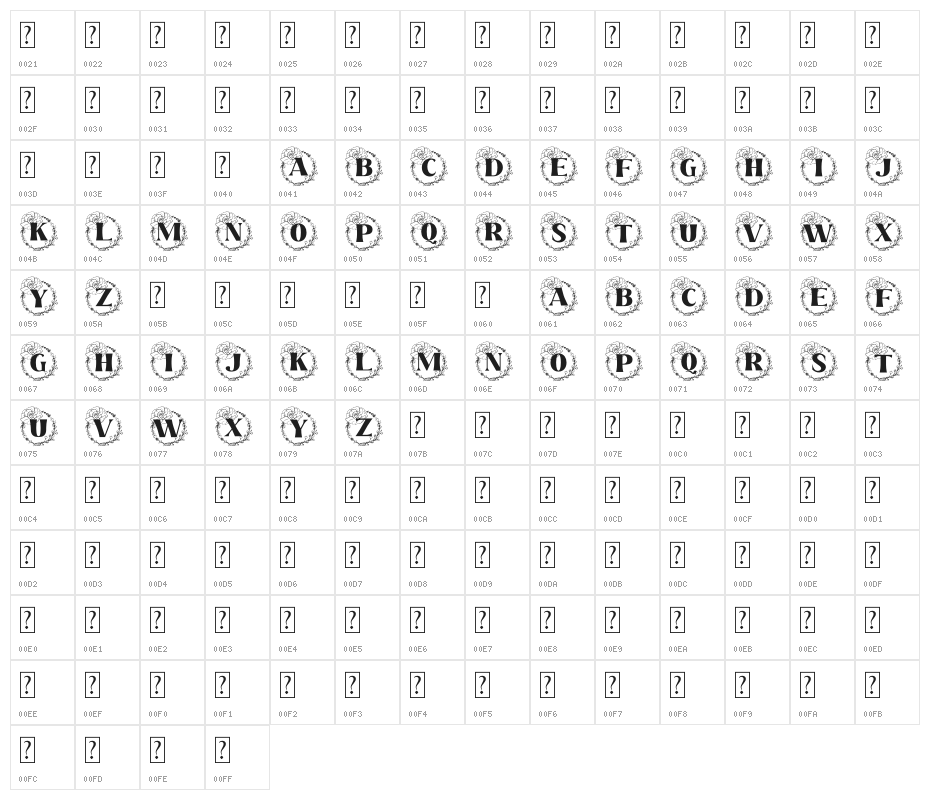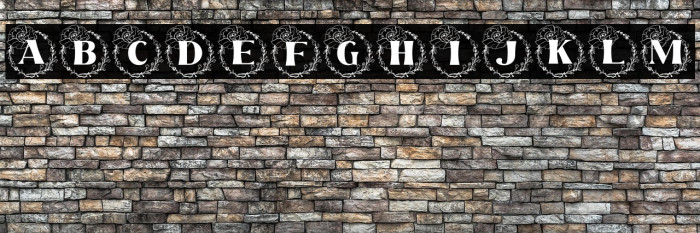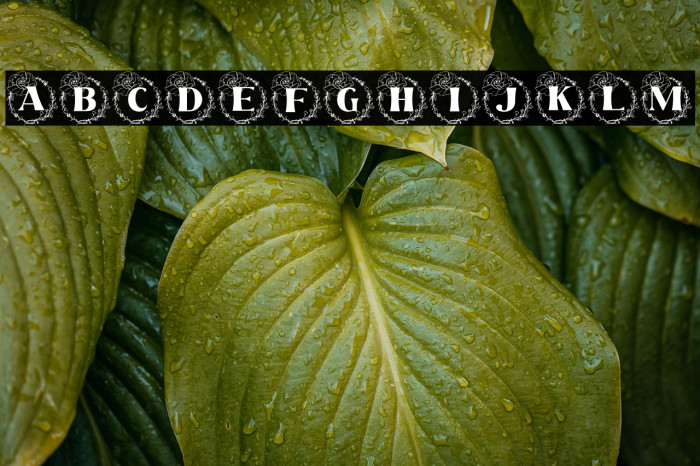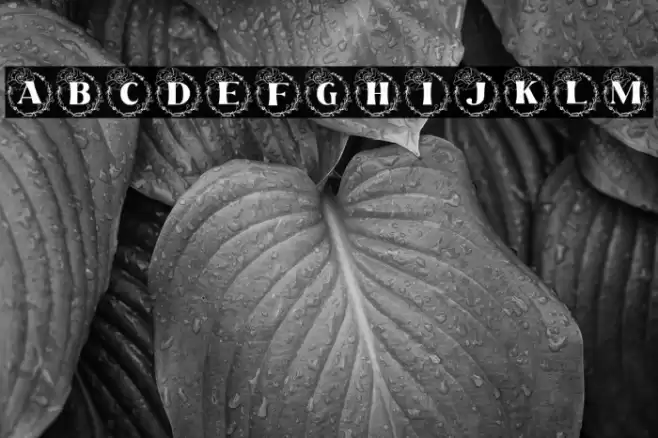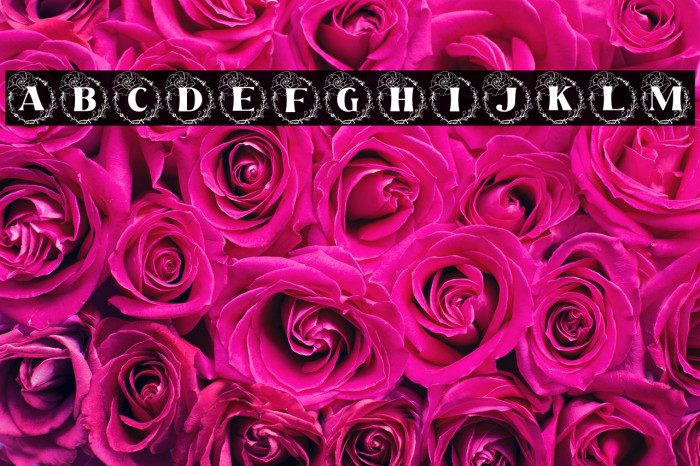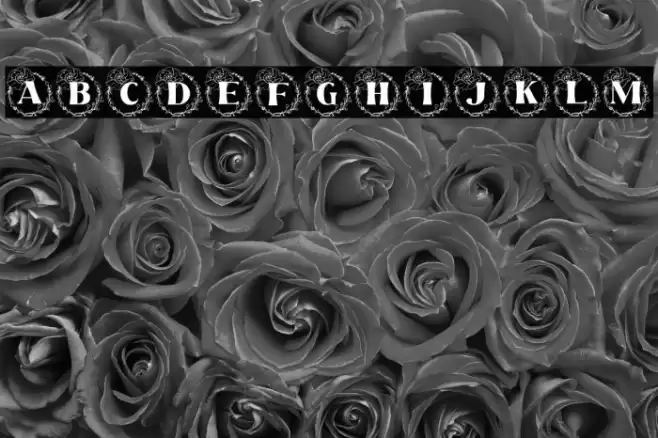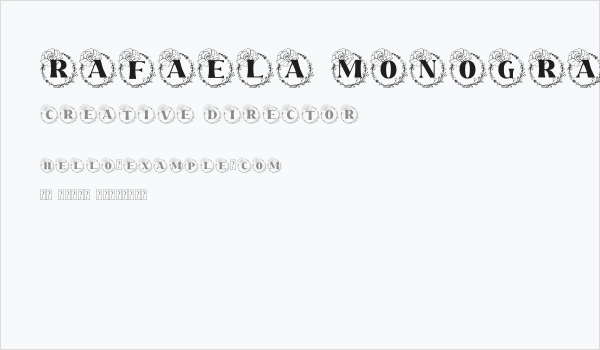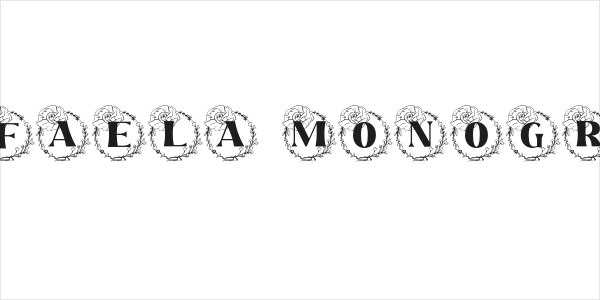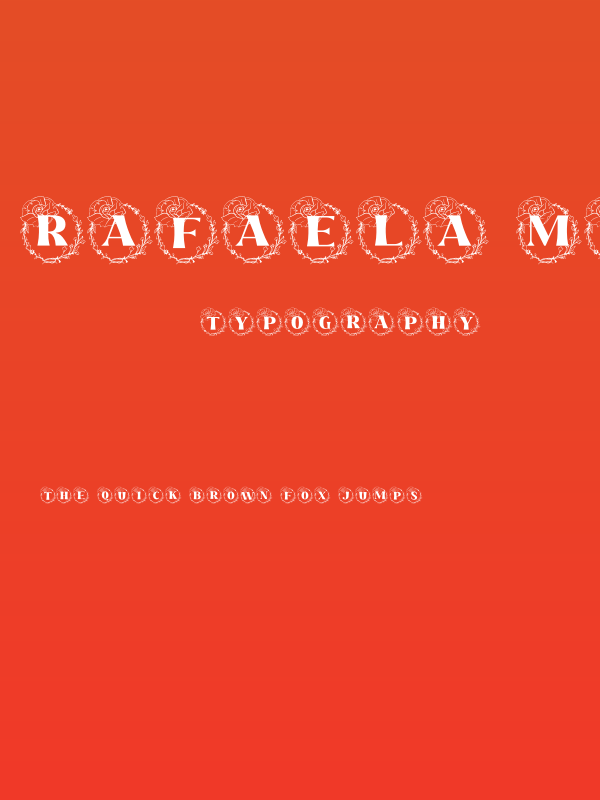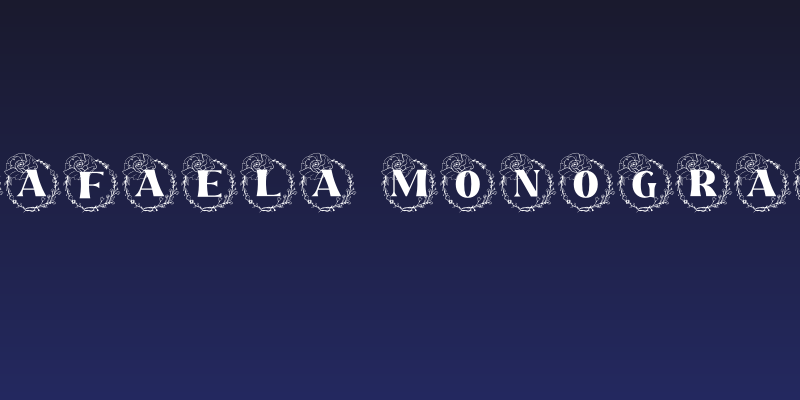
Rafaela Monogram Font
Rafaela Monogram Description
This font features an elegant and decorative style, with each letter encased in an ornate floral wreath. The uppercase letters are bold and prominent, designed to stand out with their intricate detailing. The absence of lowercase letters and numbers suggests a focus on monogram or initial use, emphasizing a classic and sophisticated aesthetic. The floral embellishments add a touch of vintage charm, making it ideal for projects that require a luxurious and personalized touch.
Overall StyleVintage, Decorative
Use CaseLogos, Headlines, Monograms
Proposed ProjectsIdeal for wedding invitations, luxury branding, personalized stationery, and monogram designs.